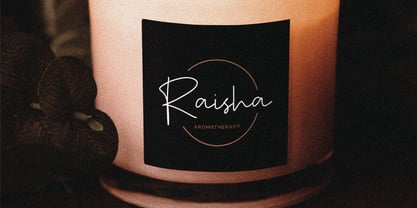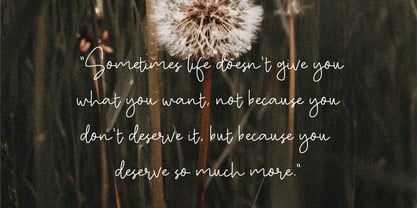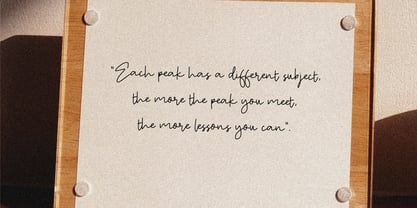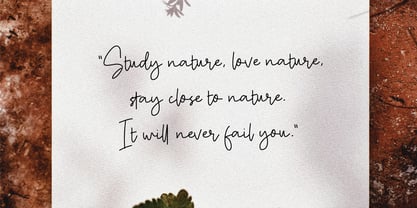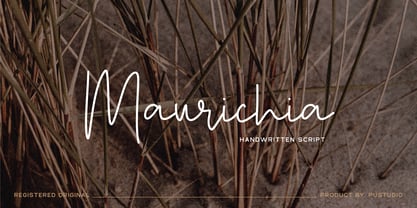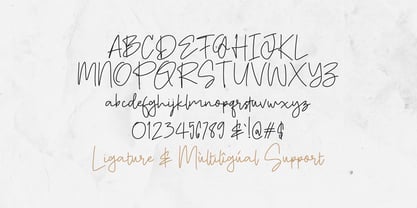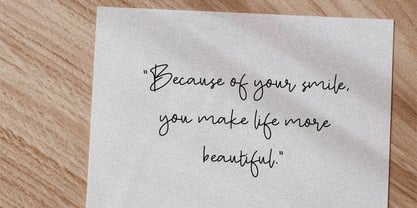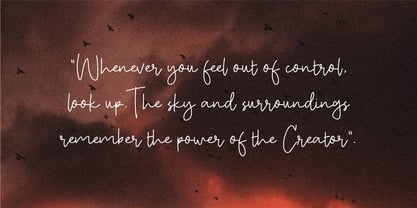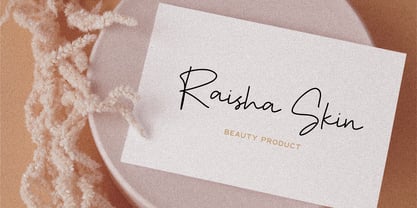
Maurichia
by pustudio
The Maurichia Font Family was designed by Haris Prawoto and published by pustudio. Maurichia contains 1 styles. More about this family
Maurichia is a beautiful script font featuring charming and elegant handwritten characters. Add this font to your most creative ideas, and see how it makes it stand out!
Designers: Haris Prawoto
Foundry: pustudio